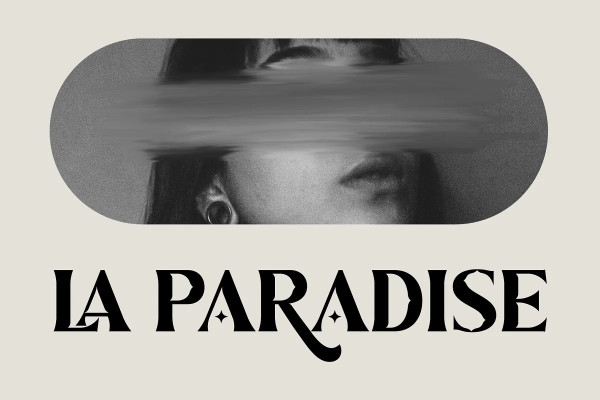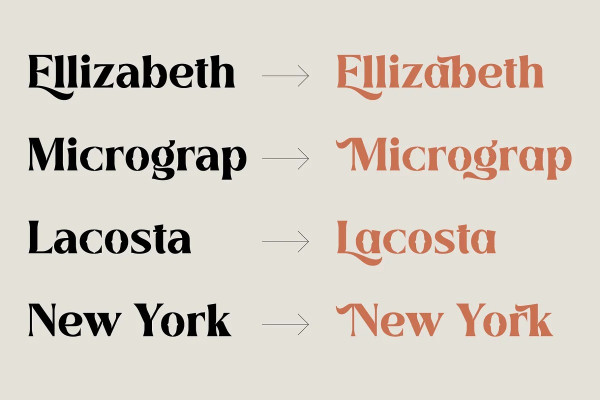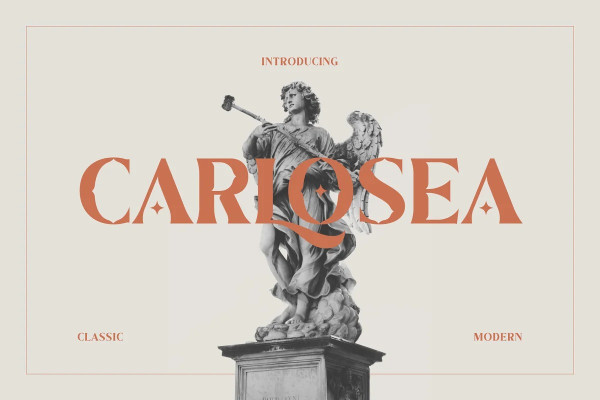
Carlosea Font
Carlosea Font is a serif while classic elegance is still maintained. It will boost your design stand out!. To enable the OpenType Stylistic alternates, you need a program that supports OpenType features such as Adobe Illustrator CS, Adobe Indesign & CorelDraw X6-X7, Photoshop CS.